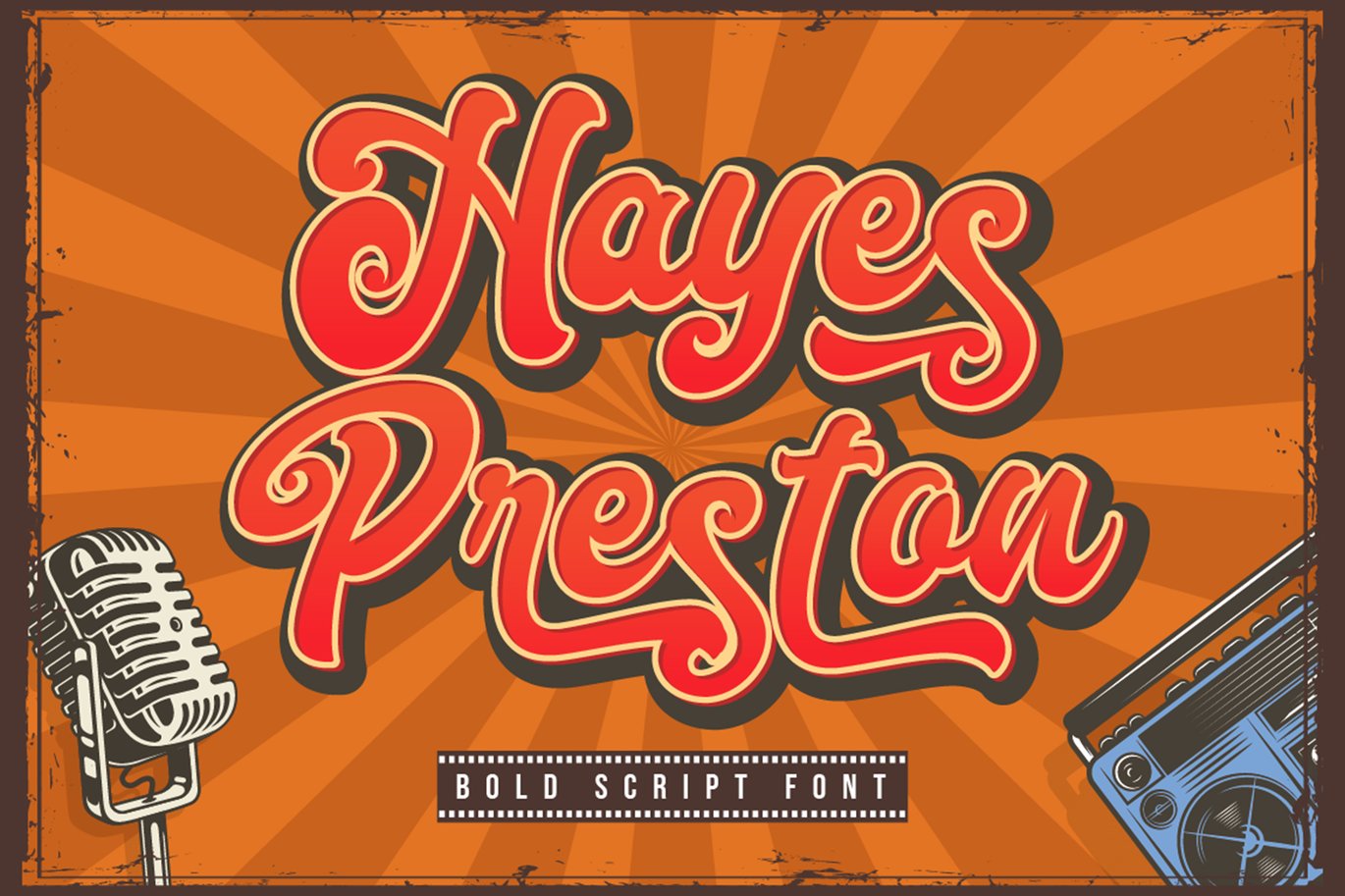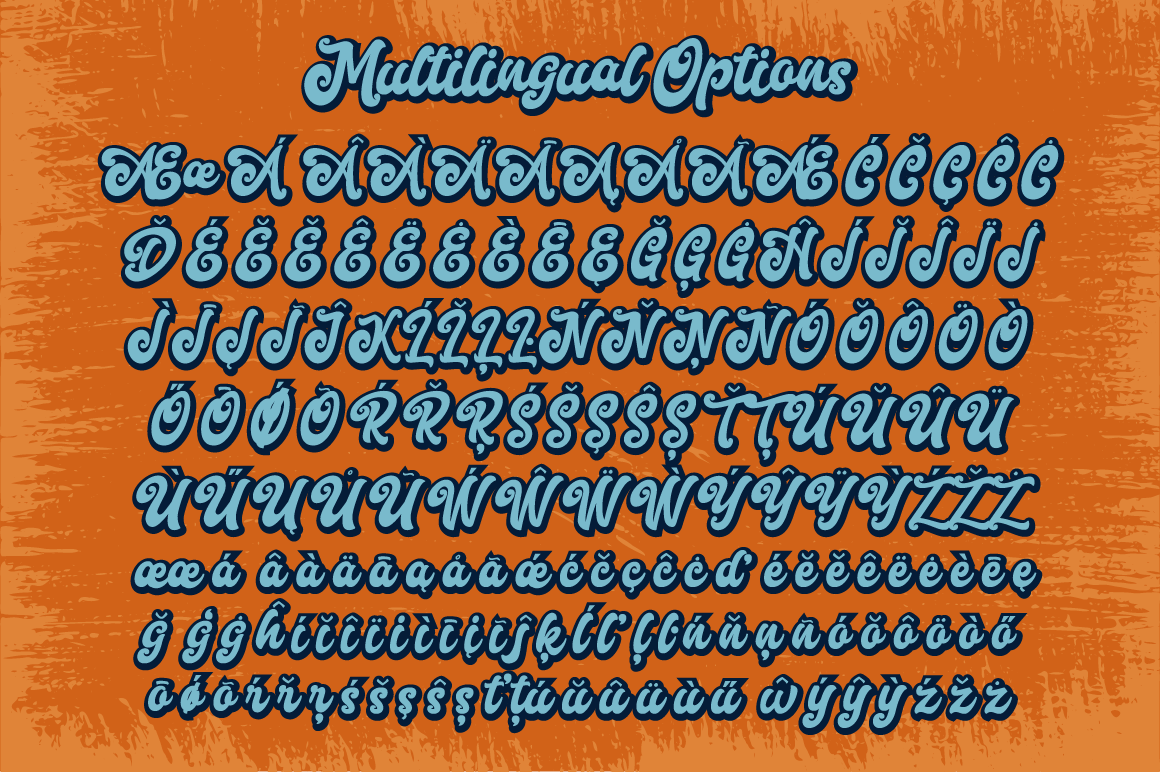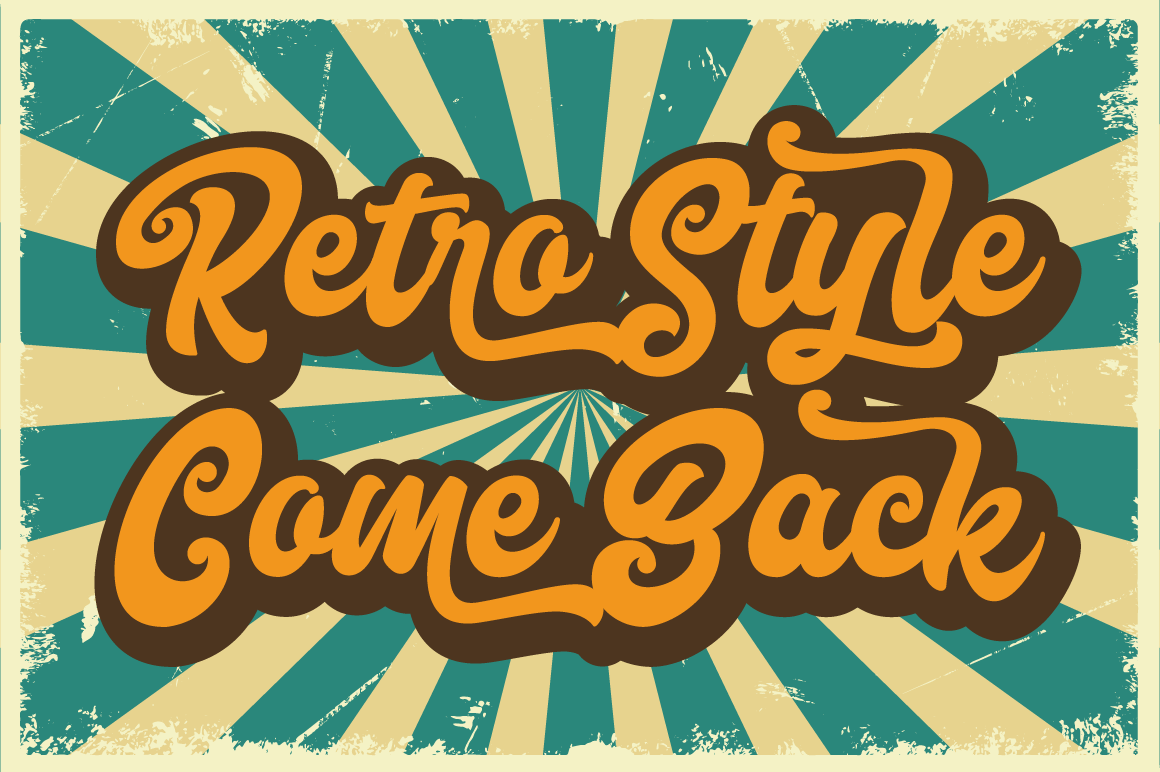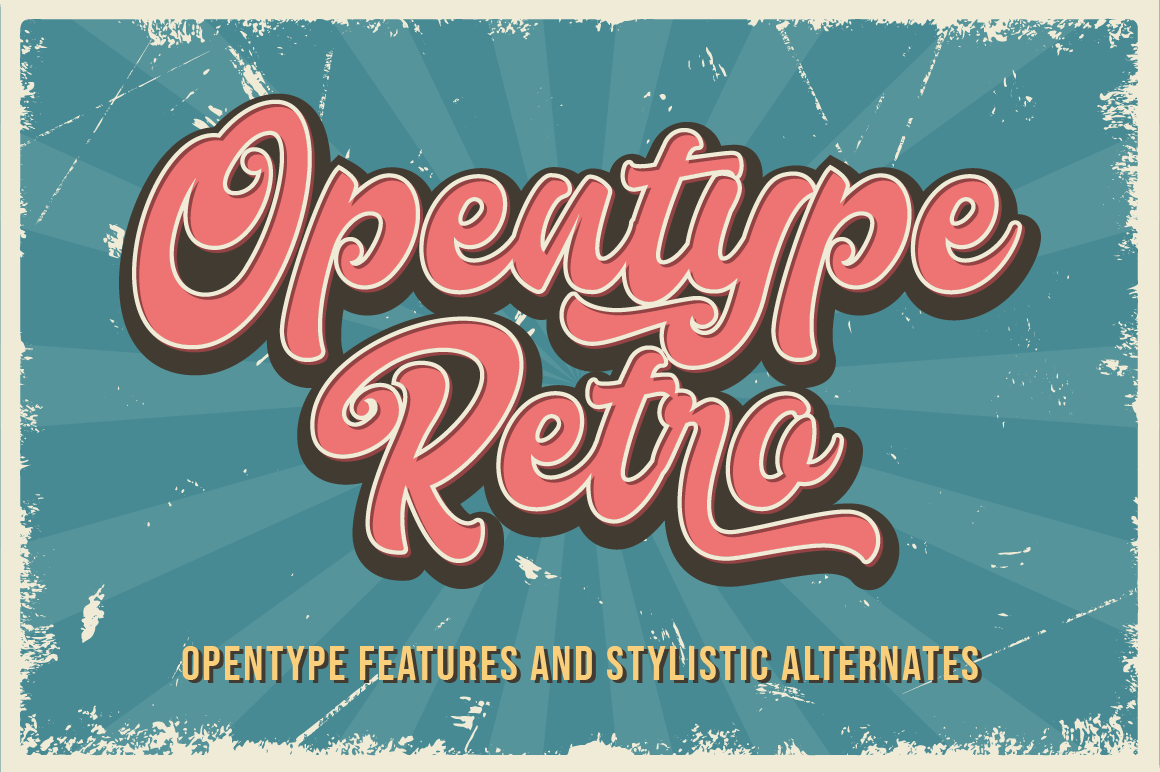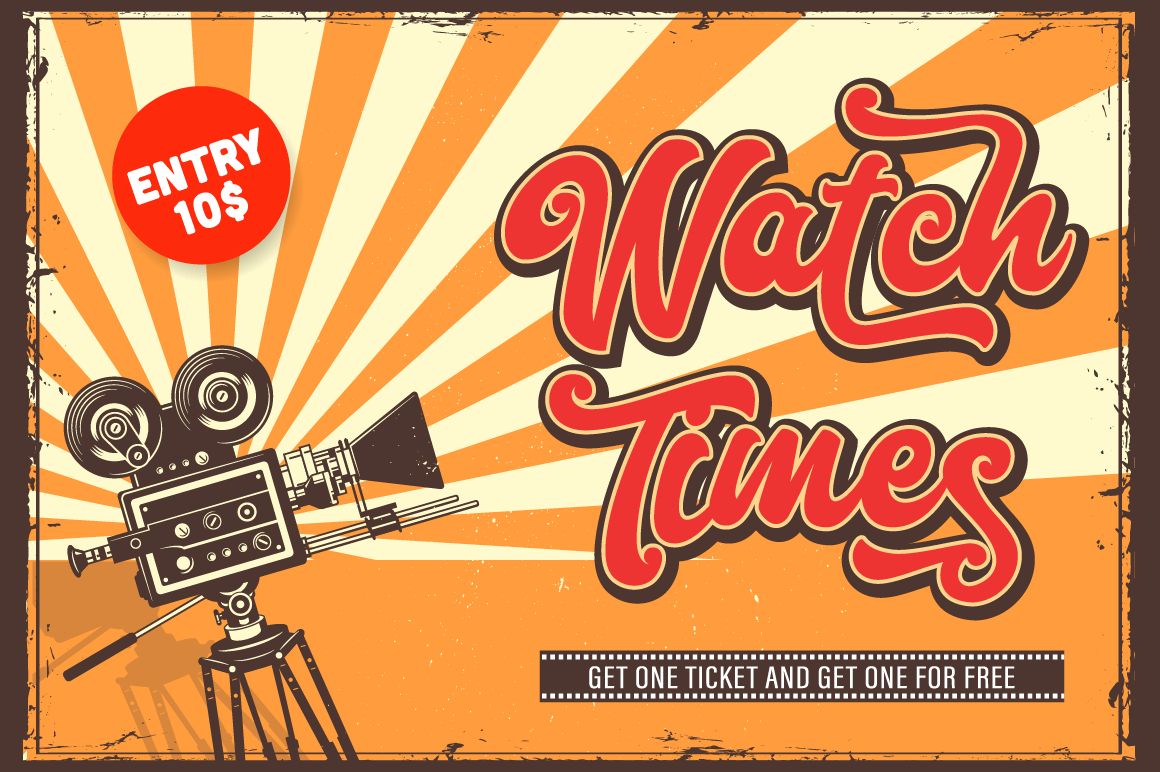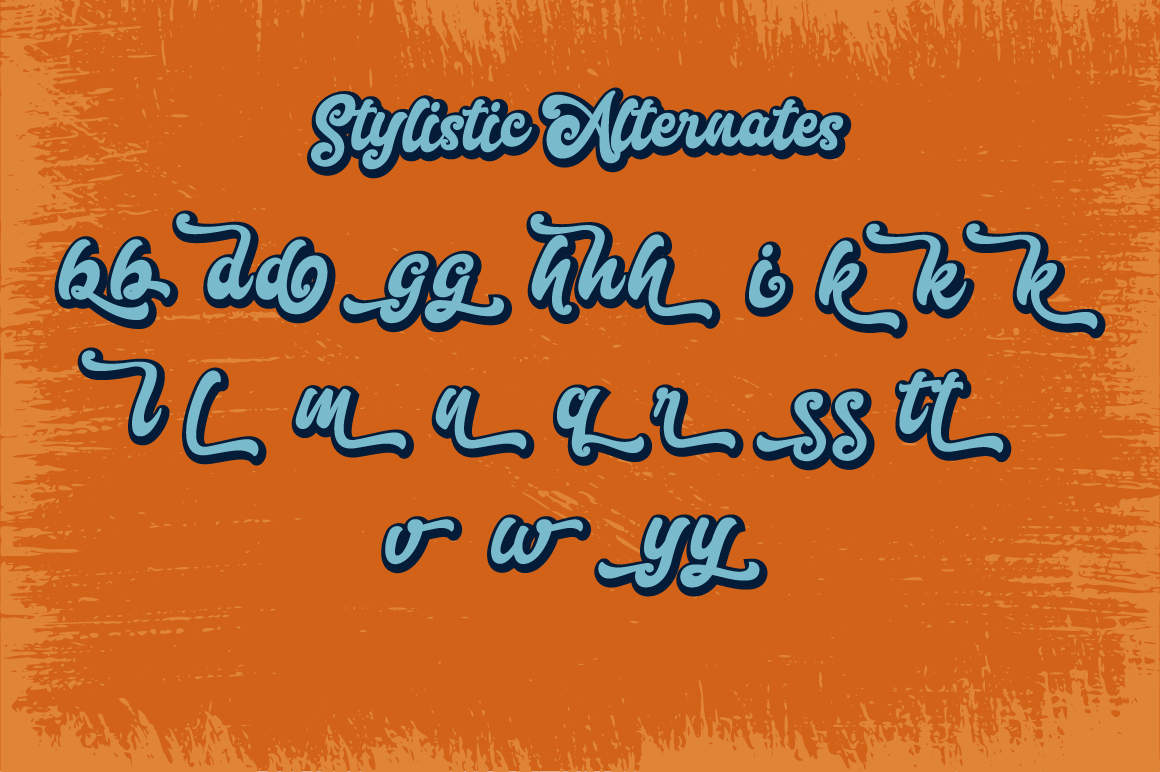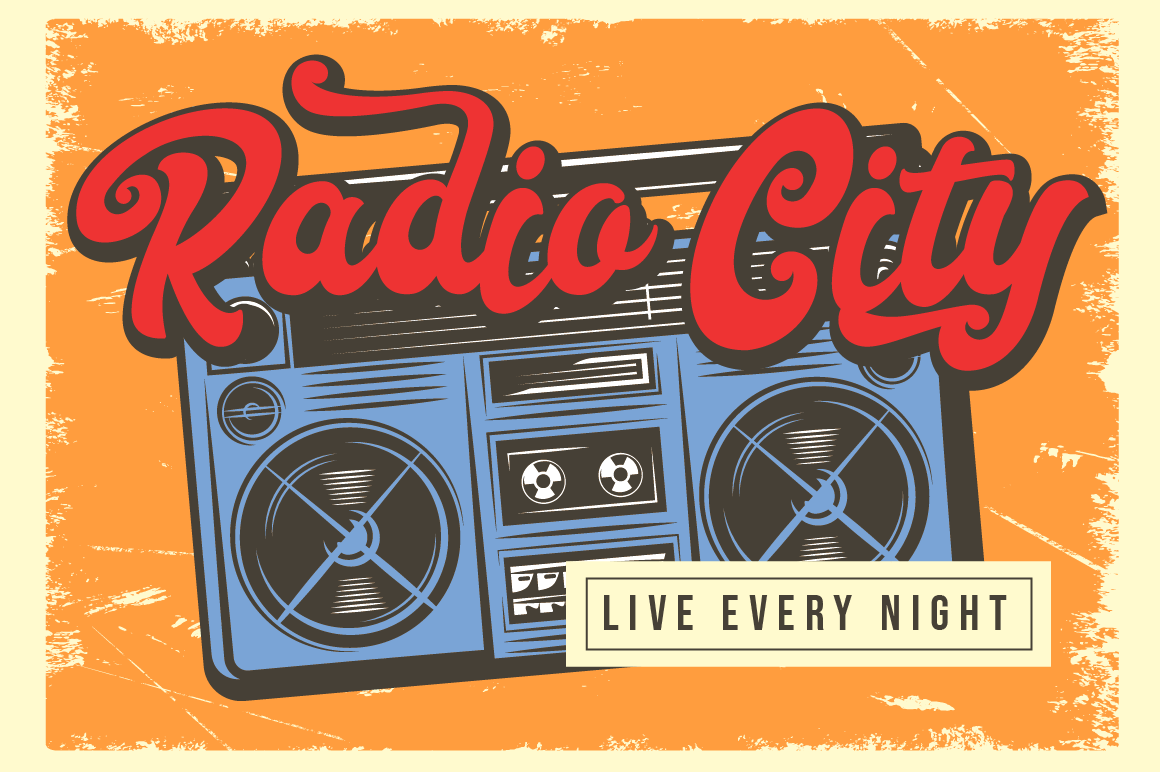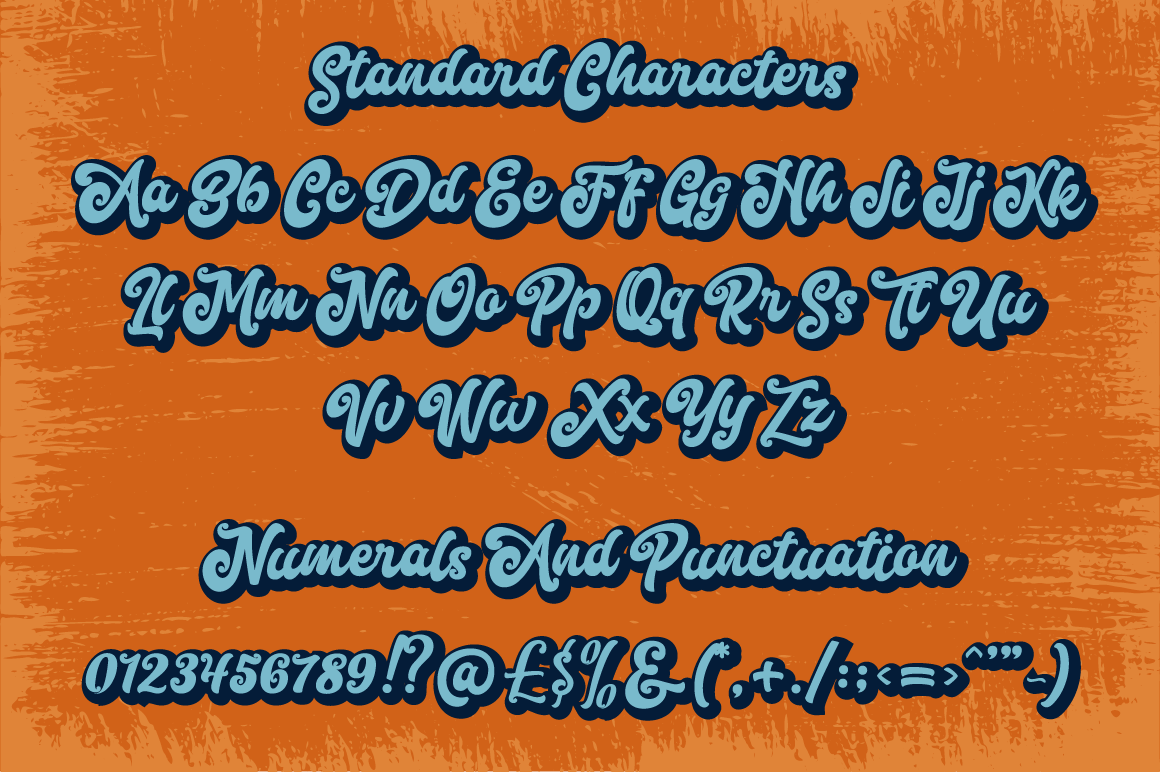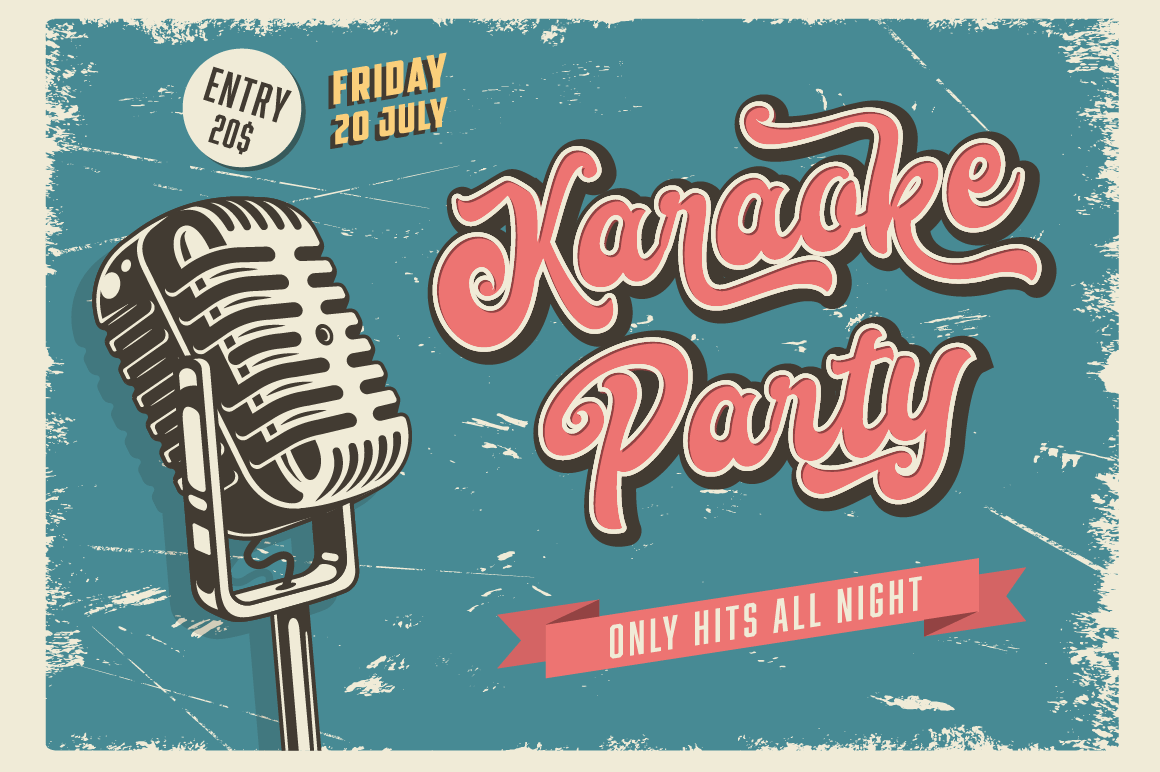
Hayes Preston – Bold Font
Hayes Preston is a bold and vintage styled handwritten font. This font reads as strong, confident, and dynamic and can add tons of nostalgic character to your designs.